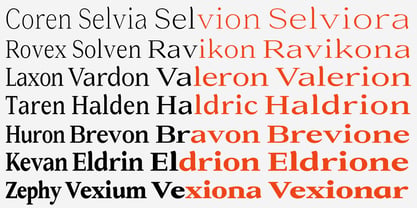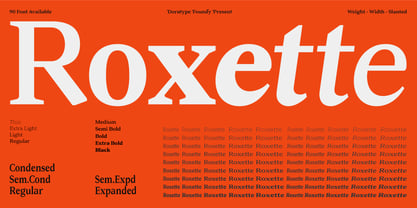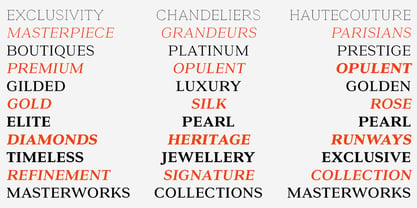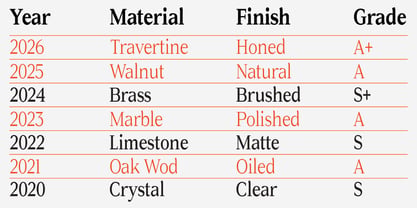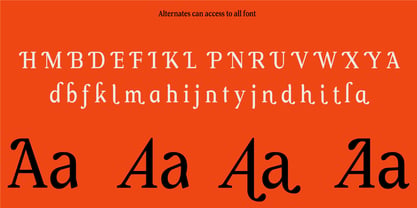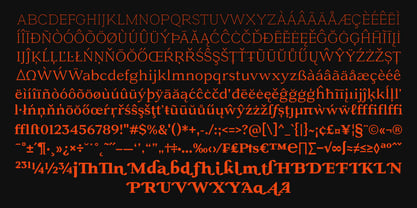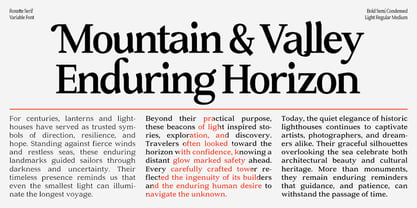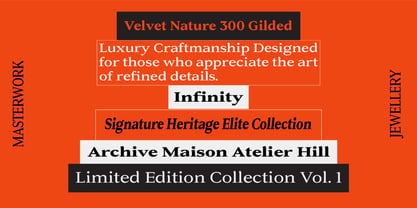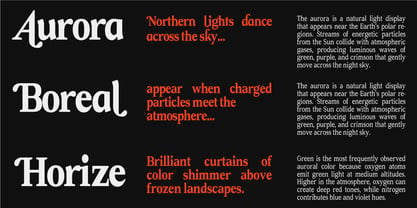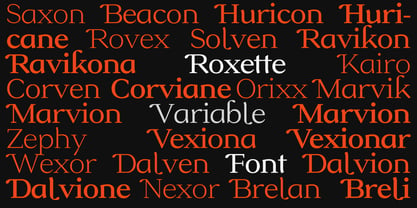
Roxetto
Die Schriftfamilie Roxetto wurde von Zahratul Laila entworfen und von Dora Typefoundry veröffentlicht. Roxetto enthält 91 Stile und Familienpaketoptionen. Mehr über diese Familie
Roxette is a modern serif typeface that blends classic elegance with a contemporary touch. Designed as a comprehensive variable font family, it offers a wide range of weights, widths, and slants, providing exceptional flexibility for branding, editorial, packaging, and digital applications.
With balanced contrast, elegant proportions, and characters that are both distinctive and highly legible, Roxette conveys a premium, professional, and sophisticated feel. It is ideally suited for logos, headlines, magazines, brand identities, luxury products, and any design project that prioritizes modern aesthetics and typographic versatility.